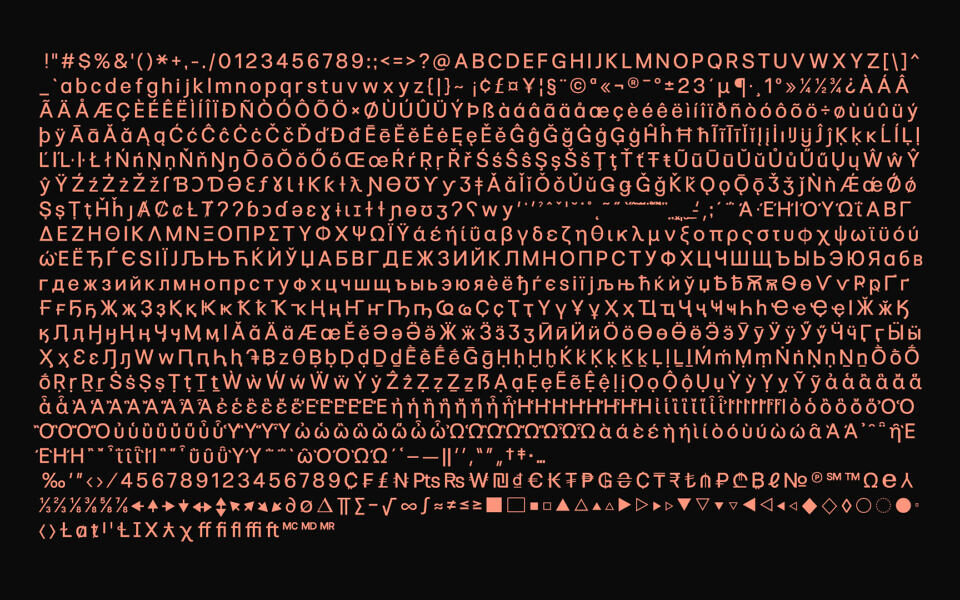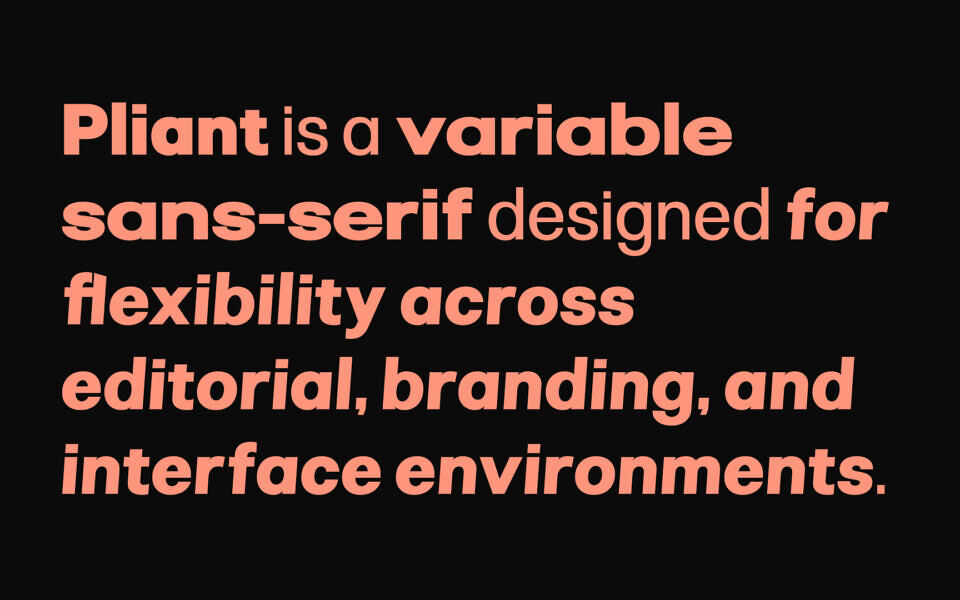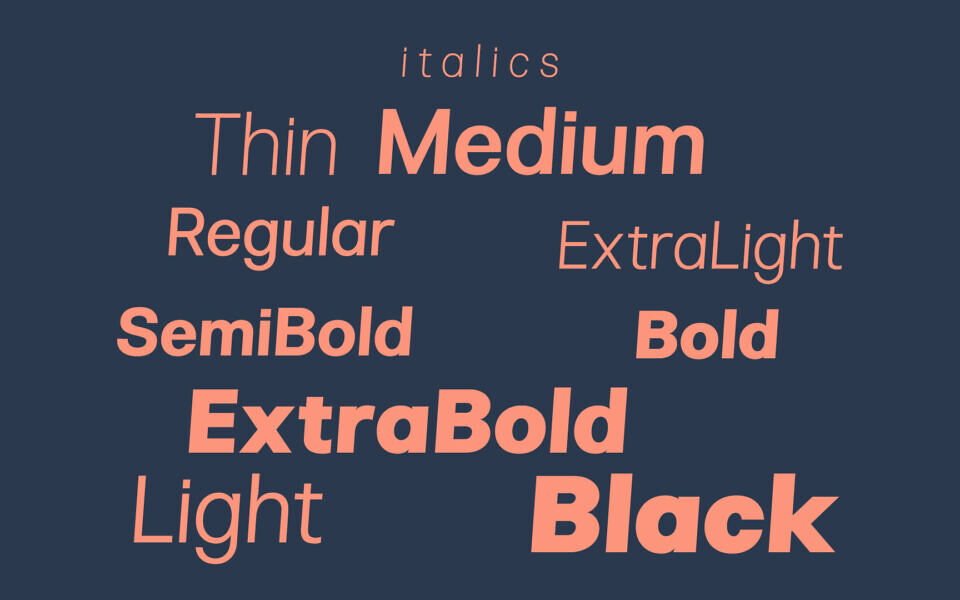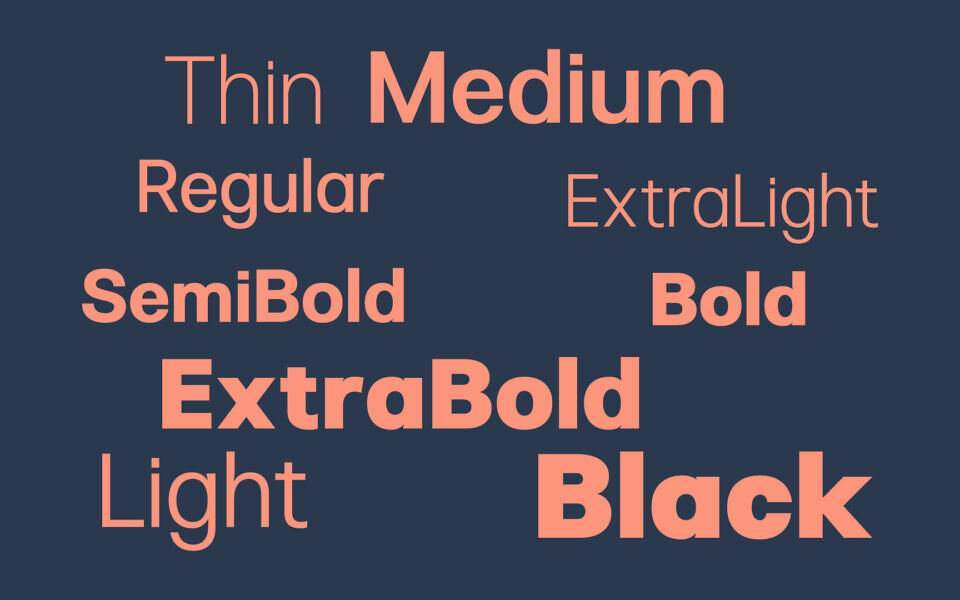
Pliant Font Family
Pliant is a variable sans-serif designed for flexibility across editorial, branding, and interface environments. Pliant was designed as a versatile system capable of adapting across multiple typographic environments while maintaining consistency, clarity, and rhythm.
The family explores spatial flexibility through proportional changes ranging from compact to expanded compositions. Supporting Latin, Greek, and Cyrillic scripts, the family combines weight and width variation within a contemporary typographic system.
Pliant includes support for upright and italic styles, variable weight and width axes, and a multilingual character set containing more than 1,020 glyphs.